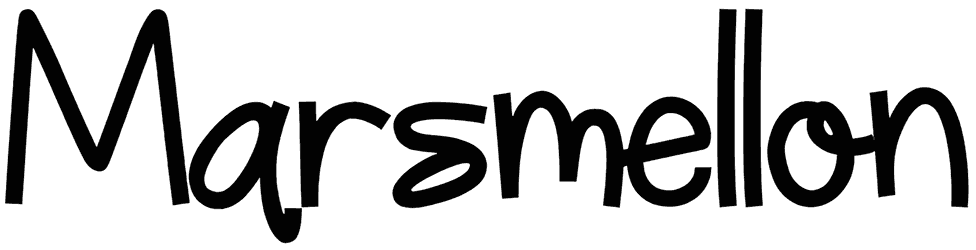
Marsmellon Font
Marsmellon can become your best friend to add a leading light and personal touch to your designs. This scrapbook font is suitable for you when you want something different and need legibility. The rounded and knotted edges in this script font give a natural and organic look to your writing and help posters, advertisements, packaging, and logos to stand out from the page.
MARSMELLON™ is a playful typeface font.